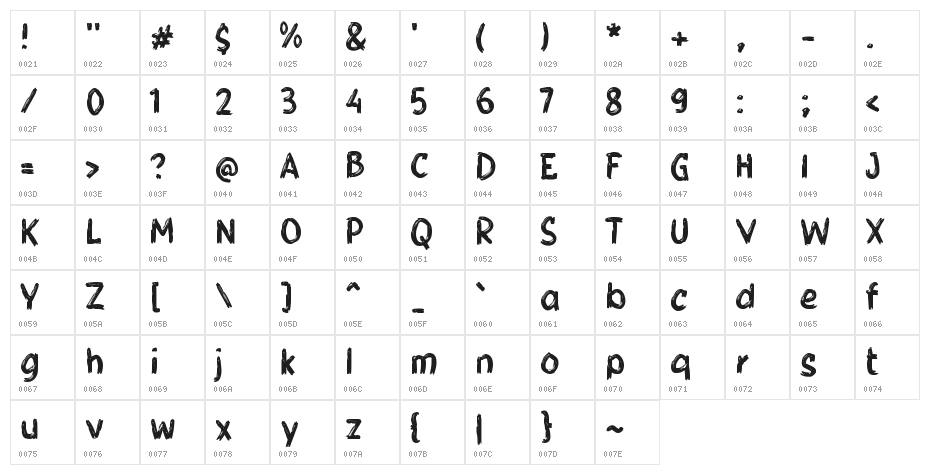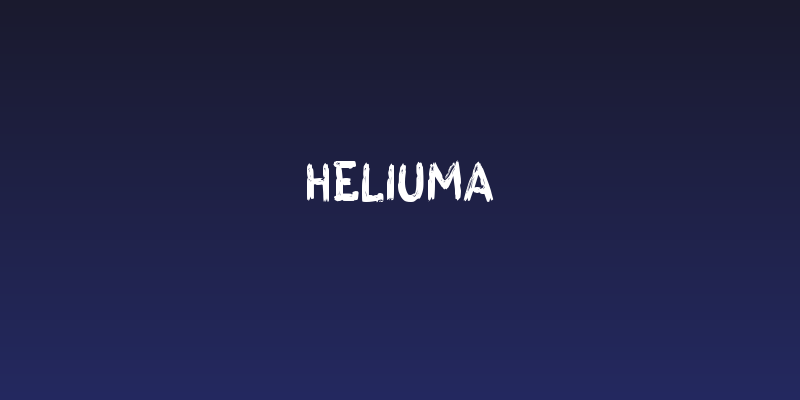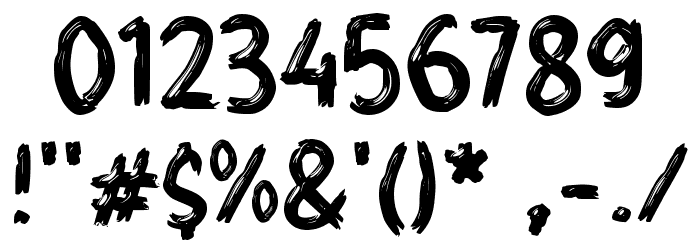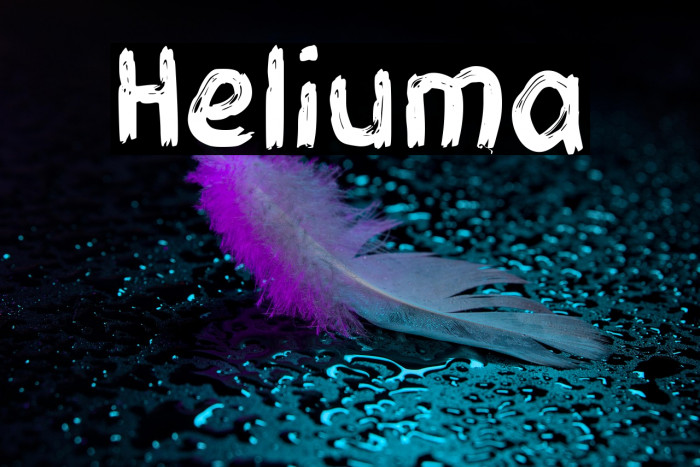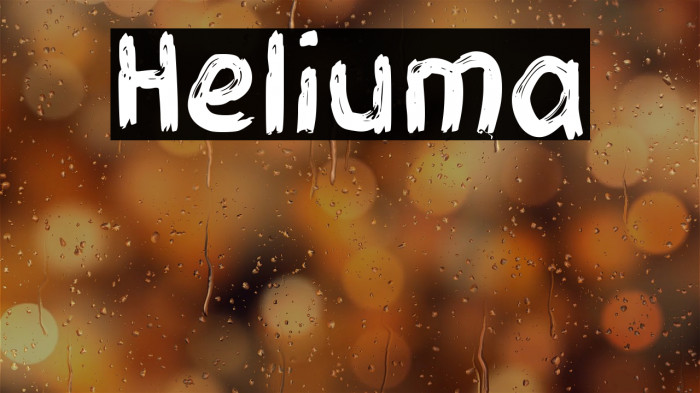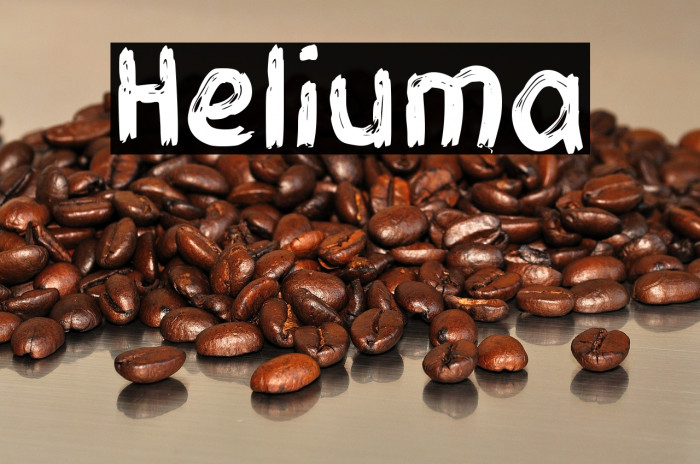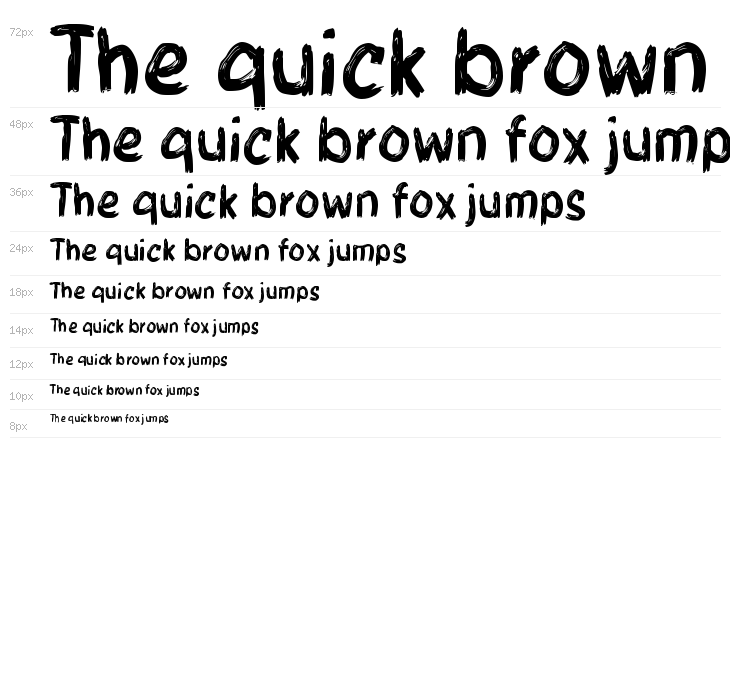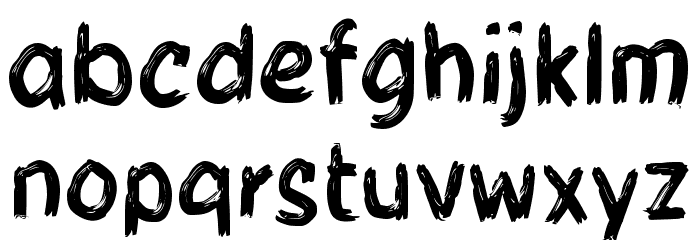
Heliuma Font
Heliuma Description
This font exhibits a bold and expressive style, characterized by its brush-like strokes that convey a sense of dynamism and energy. The letters are crafted with an uneven texture, giving them a hand-painted appearance that adds a personal and artistic touch. The uppercase and lowercase letters maintain a consistent style, with rounded edges and varying stroke thicknesses that enhance its visual appeal. The numerals and special characters follow the same design principles, ensuring a cohesive look across all elements. This font's unique aesthetic makes it stand out, offering a creative flair that is both modern and playful.
| Proposed Projects | Ideal for creative projects such as posters, branding, packaging, and social media graphics where a bold and artistic statement is desired. |